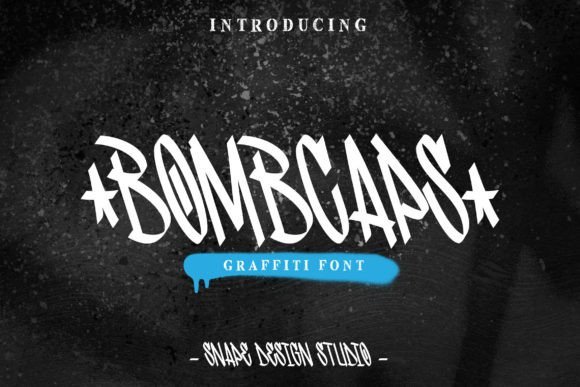
Unleash Your Creativity with the Ultimate Street Art Font
Have you ever been browsing through a trendy art district, surrounded by vibrant murals and eclectic street art, and felt the urge to capture that same urban vibe in your next design project? For many creatives, that’s exactly what sparked the idea behind Bombcaps Font – a cool and trendy display font that embodies the spirit of street art calligraphy.
Bombcaps Font is more than just a font; it’s a statement piece that adds an authentic touch to any project. Its unique, graffiti-style characters are designed to transport your audience to the heart of the city, where creativity knows no bounds. Whether you’re a seasoned designer or a newcomer to the world of typography, Bombcaps Font is a valuable asset that can elevate your designs to the next level.
Bombcaps Font Key Features
- Unique Characteristics: Bombcaps Font features a distinctive, futuristic design with geometric shapes and bold lines, making it perfect for titles, headings, and other attention-grabbing text.
Bombcaps Font Review
Overall, I think Bombcaps Font is a unique and interesting addition to any design project. It has a distinct, hand-drawn feel that can add a touch of personality to your work. ✨
The font is highly customizable, with a wide range of weights and styles to choose from. This makes it easy to find the perfect fit for your design needs. Additionally, the font’s irregular shapes and lines can add a sense of visual interest and depth to your text. ✨
- Unique, hand-drawn feel
- Adds visual interest and depth to text
However, I do have some reservations about the font’s limitations. ⚠️
- May be difficult to read in certain contexts (e.g. body text)
- Lack of consistency in letterforms
- May not be suitable for formal or professional designs
Overall, I think Bombcaps Font is a great choice for designers who want to add a touch of personality and whimsy to their work. However, it may not be the best choice for every project, and designers should be aware of its limitations before using it. ✨
Common Use Cases for Bombcaps Font
Bombcaps